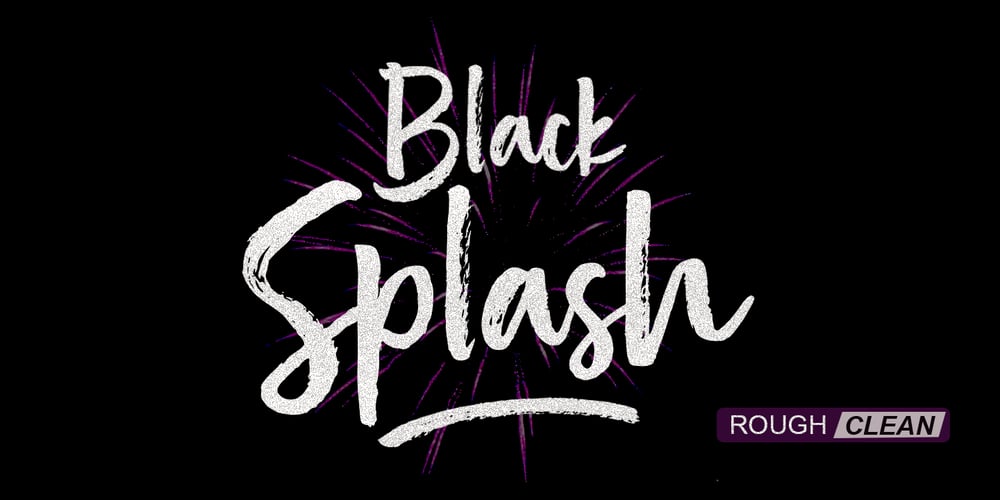
Black Splash
Black Splash font
Black Splash Font Family was designed by Yur Lis and published by Stripes Studio. Black Splash contains 4 styles and family package options. Black Splash is a super casual hand brushed script with detailed brush stroke texture, and a quirky, Can be used for various purposes. such as the title, signature, letterhead, signage, labels, newsletters, posters, logos, correspondence, wedding invitations, badges, etc.